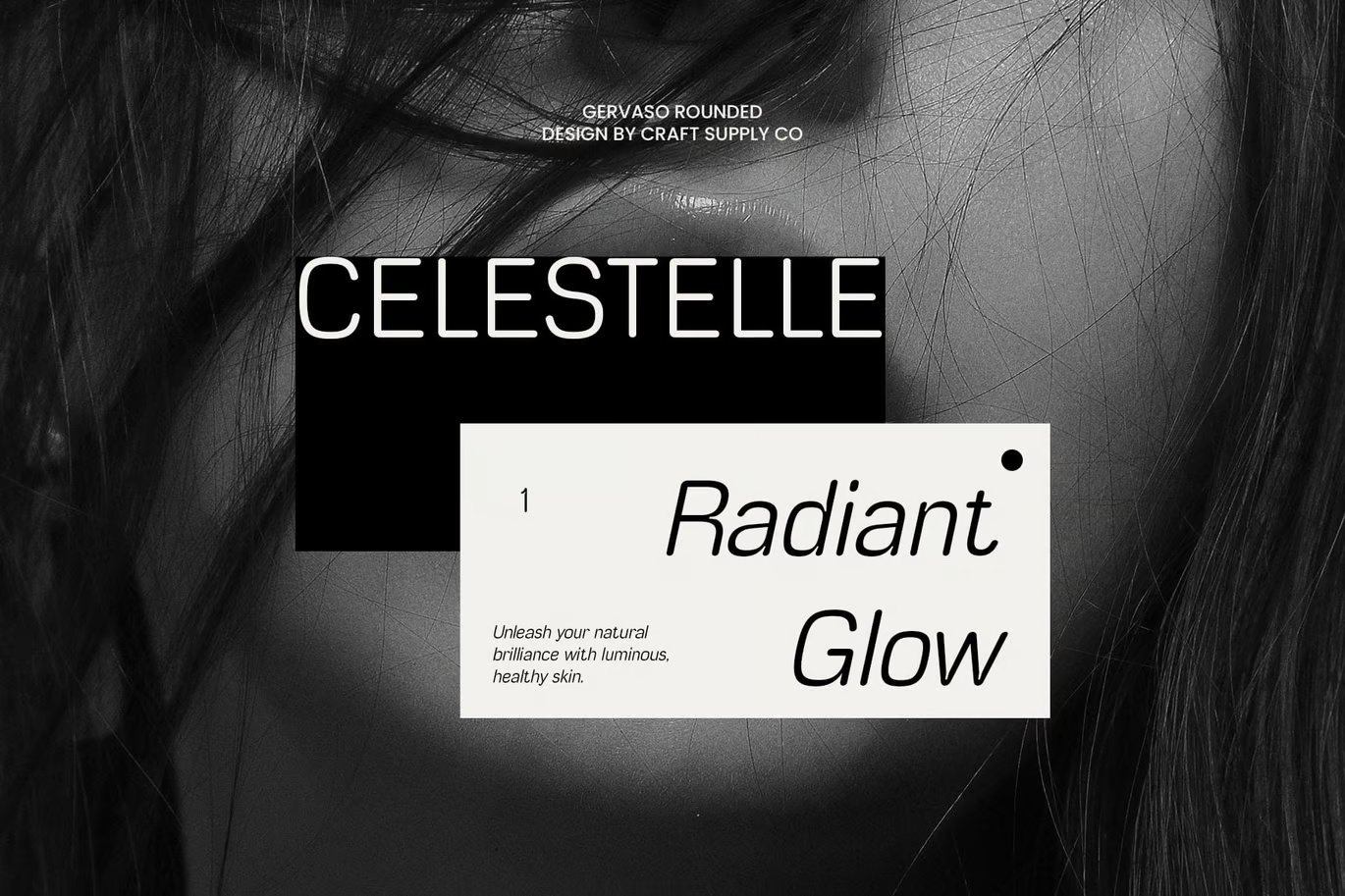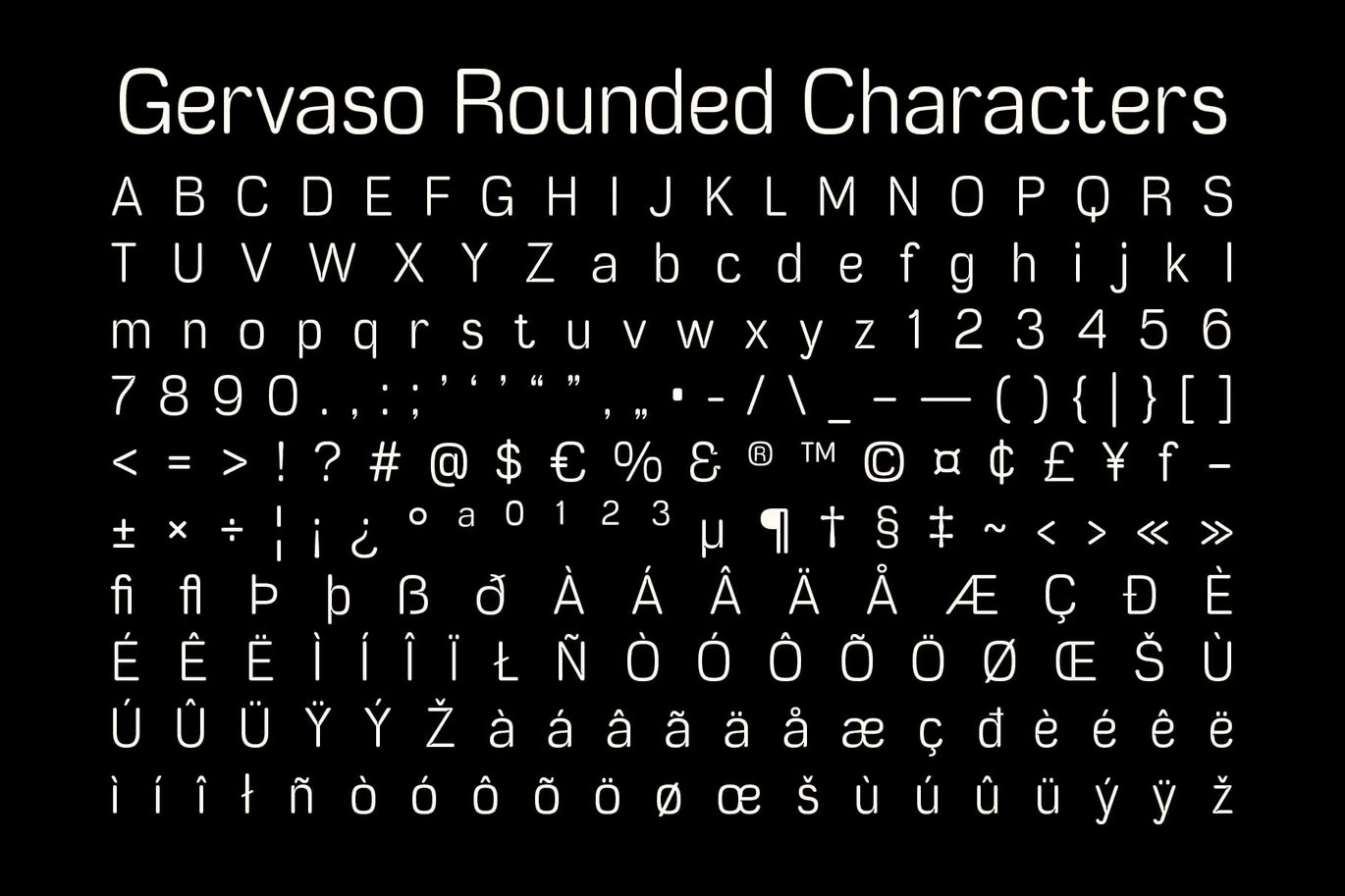
Gervaso Rounded
Gervaso Rounded Font: A Modern Balance of Precision and Softness
Gervaso Rounded is a modern sans-serif font that seamlessly blends geometric precision with grotesque characteristics and smooth, rounded edges. This balance creates a clean, approachable, and highly readable typeface, perfect for contemporary design needs. Its well-proportioned structure ensures both aesthetic appeal and functional clarity.
Designed with simplicity in mind, Gervaso Rounded maintains a sleek and professional appearance without losing its unique character. The rounded edges soften its overall look, making it feel warm and inviting while retaining a modern, structured appeal. This makes it a great choice for branding, corporate identities, and digital interfaces.
With its clean and polished form, Gervaso Rounded adapts effortlessly to multiple design projects, from UI/UX design and editorial layouts to logos, packaging, and professional presentations. Whether used in bold headlines or subtle body text, this font ensures readability and consistency across different media.
Whether for business presentations, logo design, packaging, or marketing materials, Gervaso Rounded suits a wide range of applications. Its sleek, contemporary look makes it ideal for projects that demand a balance of modernity, elegance, and approachability.
Gervaso Rounded Sans-Serif Font